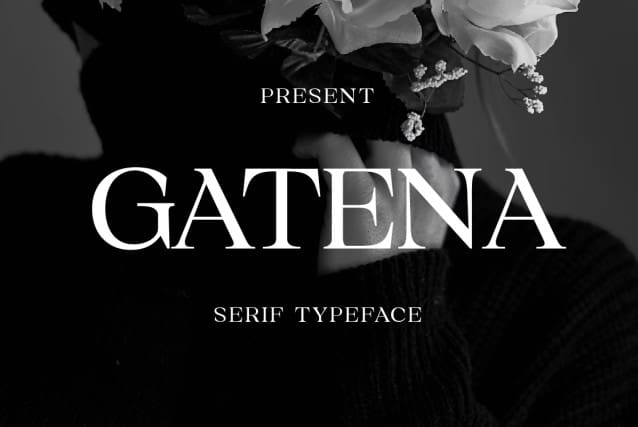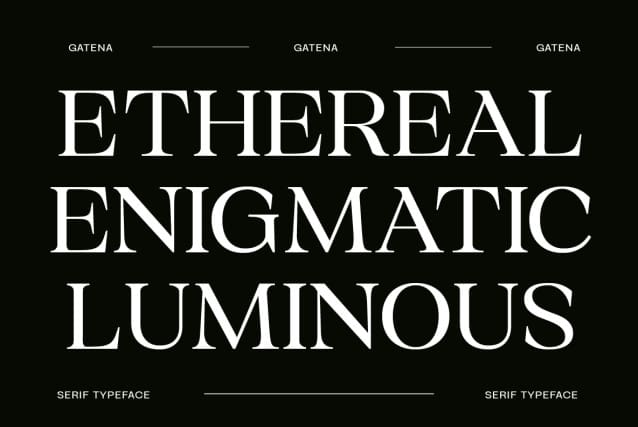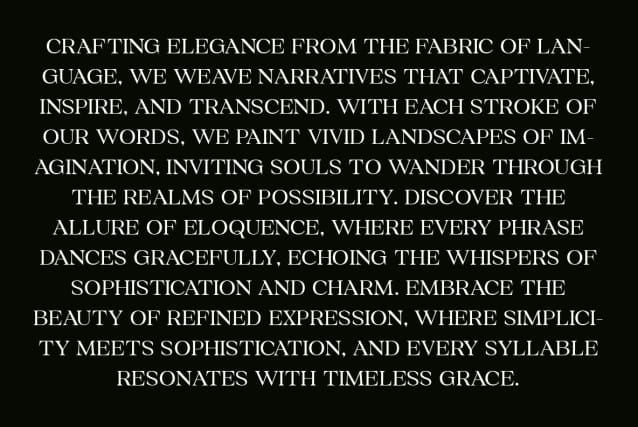
Gatena Serif Font
Gatena Serif Font – Modern Classic font is a harmonious blend of classic luxury and modern elegance. With its elegant and well-proportioned design, this font is suitable for design projects that require a touch of luxury and boldness. Each letter is carefully carved, creating an impression of perfection and elegance